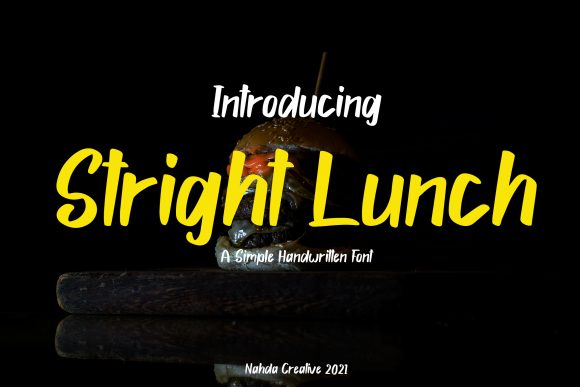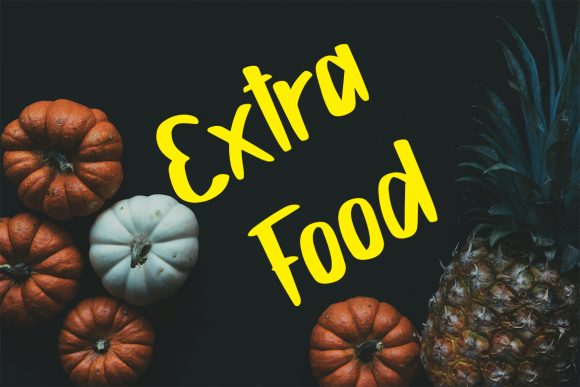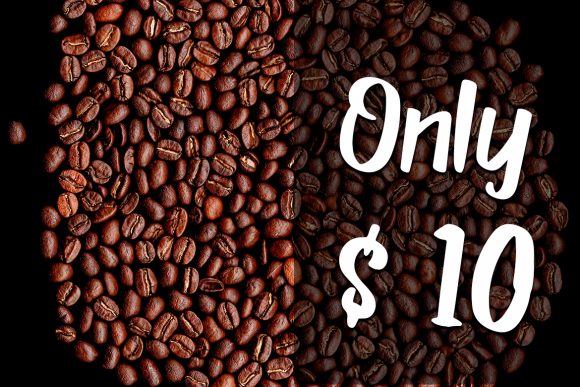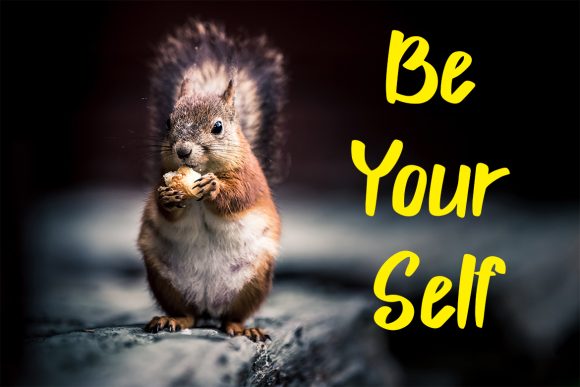
About Stright Lunch Font
Stright Lunch is a simple and strong handwritten font. No matter the topic, this font will be an incredibly asset to your fonts’ library, as it has the potential to elevate any creation.